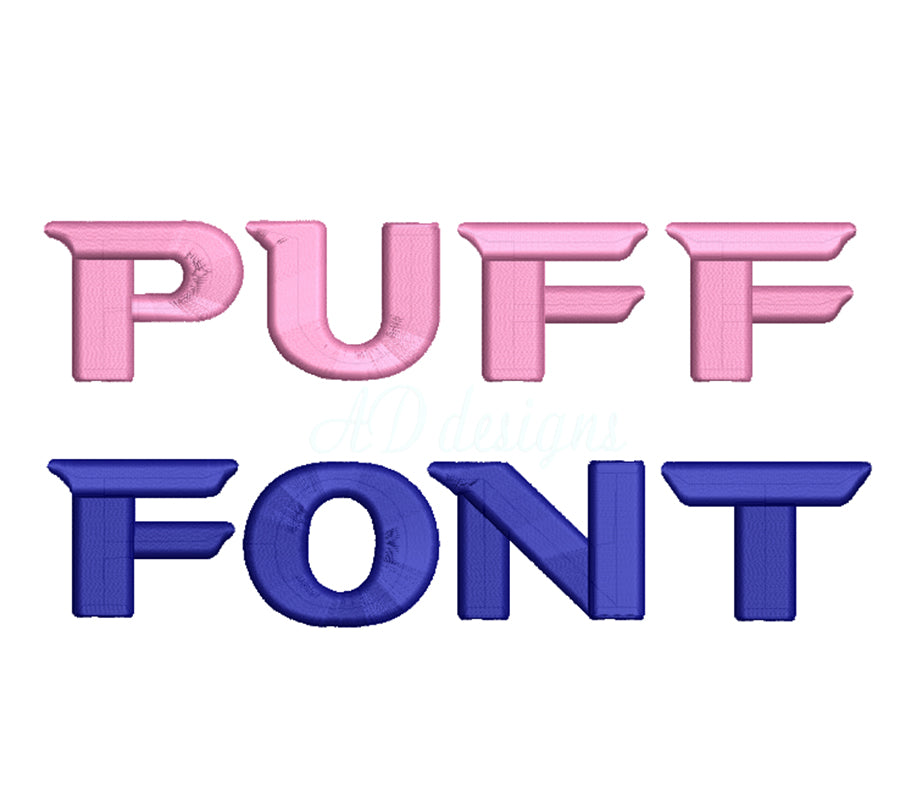
3D puff embroidery digital font. Embroidery alphabet with foam. BX format.
3D puff embroidery digital font
This font comes with letters in 3 sizes, A-Z
You must use 3D puffy foam to achieve the 3D effect.